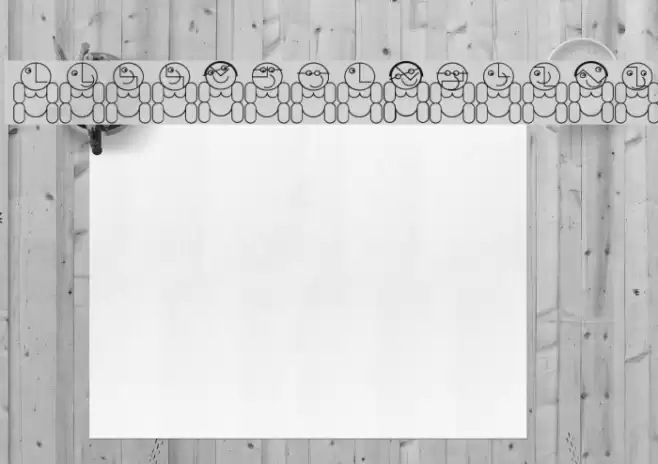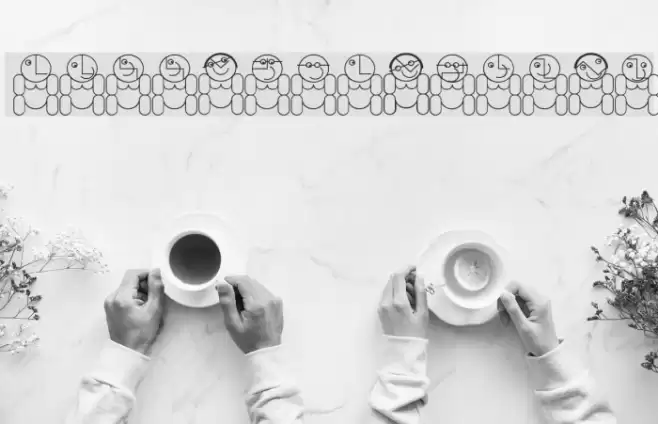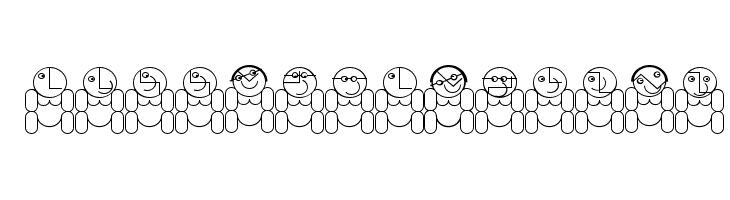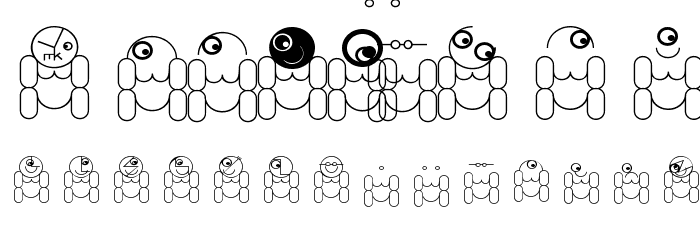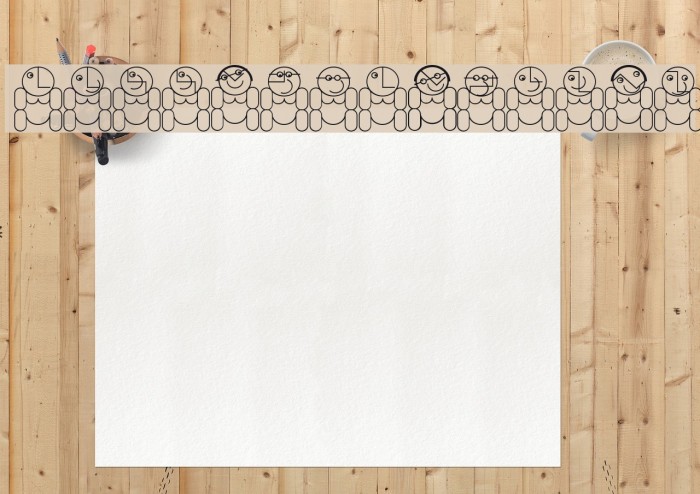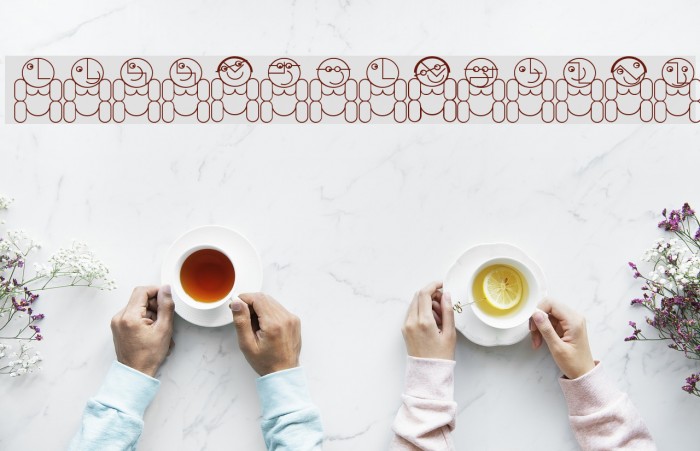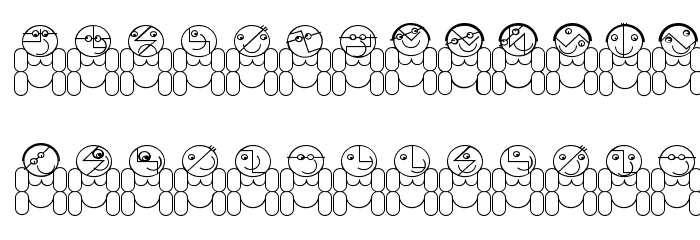
BuddhasBigArmy Font
BuddhasBigArmy Description
This font is a playful and whimsical design, featuring characters that resemble cartoonish figures with circular heads and simple facial expressions. Each character is composed of geometric shapes, primarily circles and ovals, giving it a unique and artistic appearance. The font is highly decorative, with each letter and symbol having its own distinct personality, making it ideal for creative and informal projects. The design is consistent across both uppercase and lowercase letters, as well as numbers and special characters, maintaining a cohesive and engaging look.
A playful, cartoon-like font with geometric shapes and whimsical characters from Uncategorized fonts.
- Proposed Projects: Ideal for children's books, comic strips, playful branding, and creative posters.
- Use Case: Logos, Posters, Creative projects